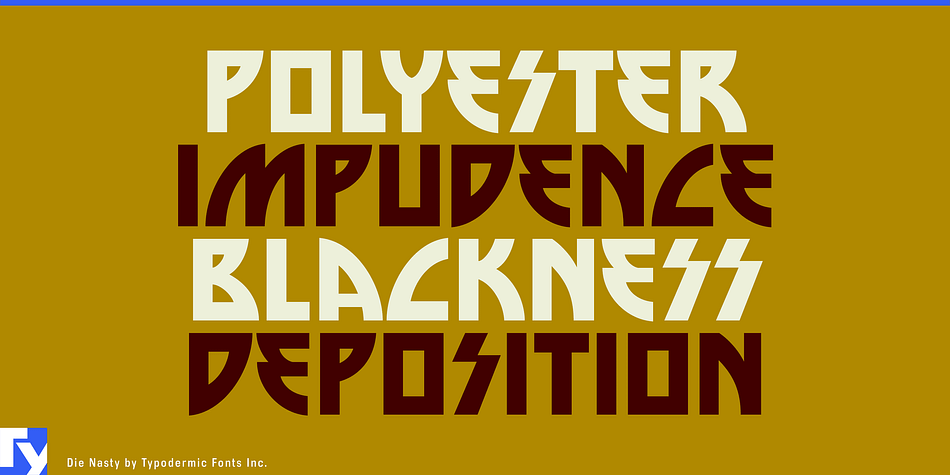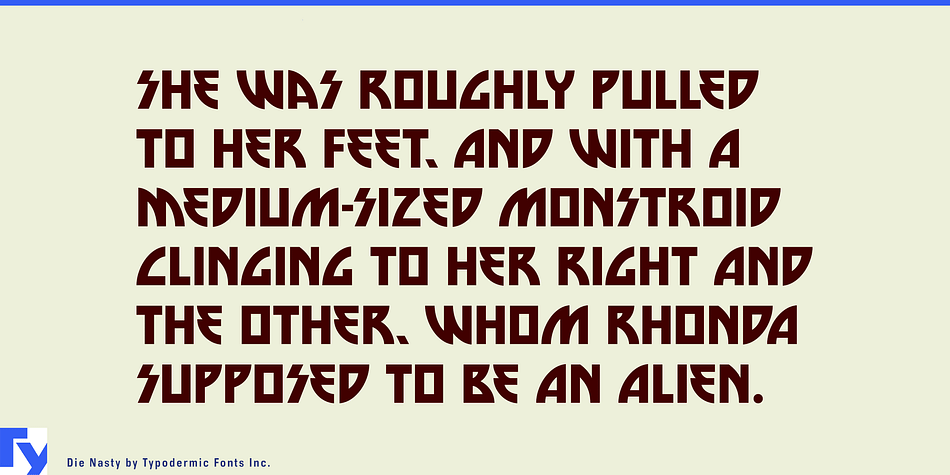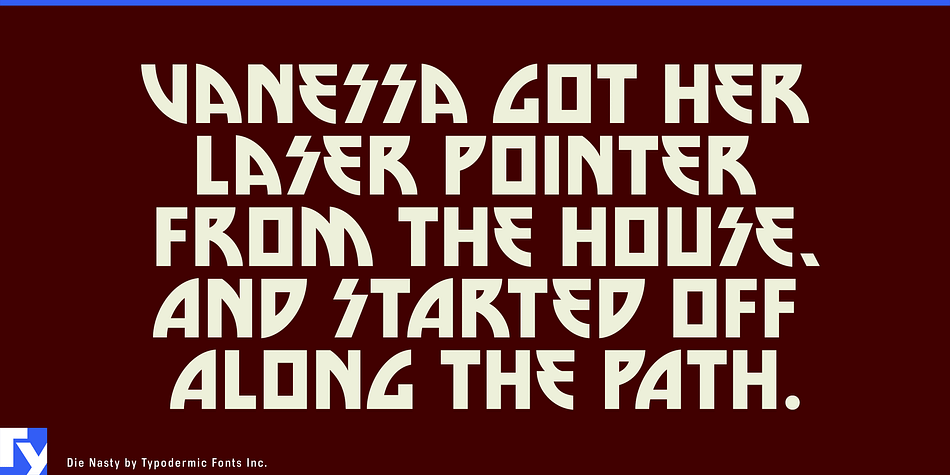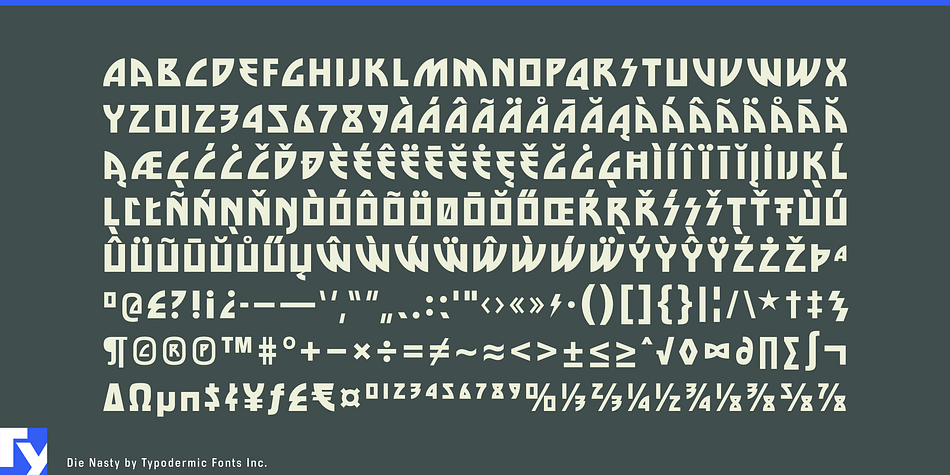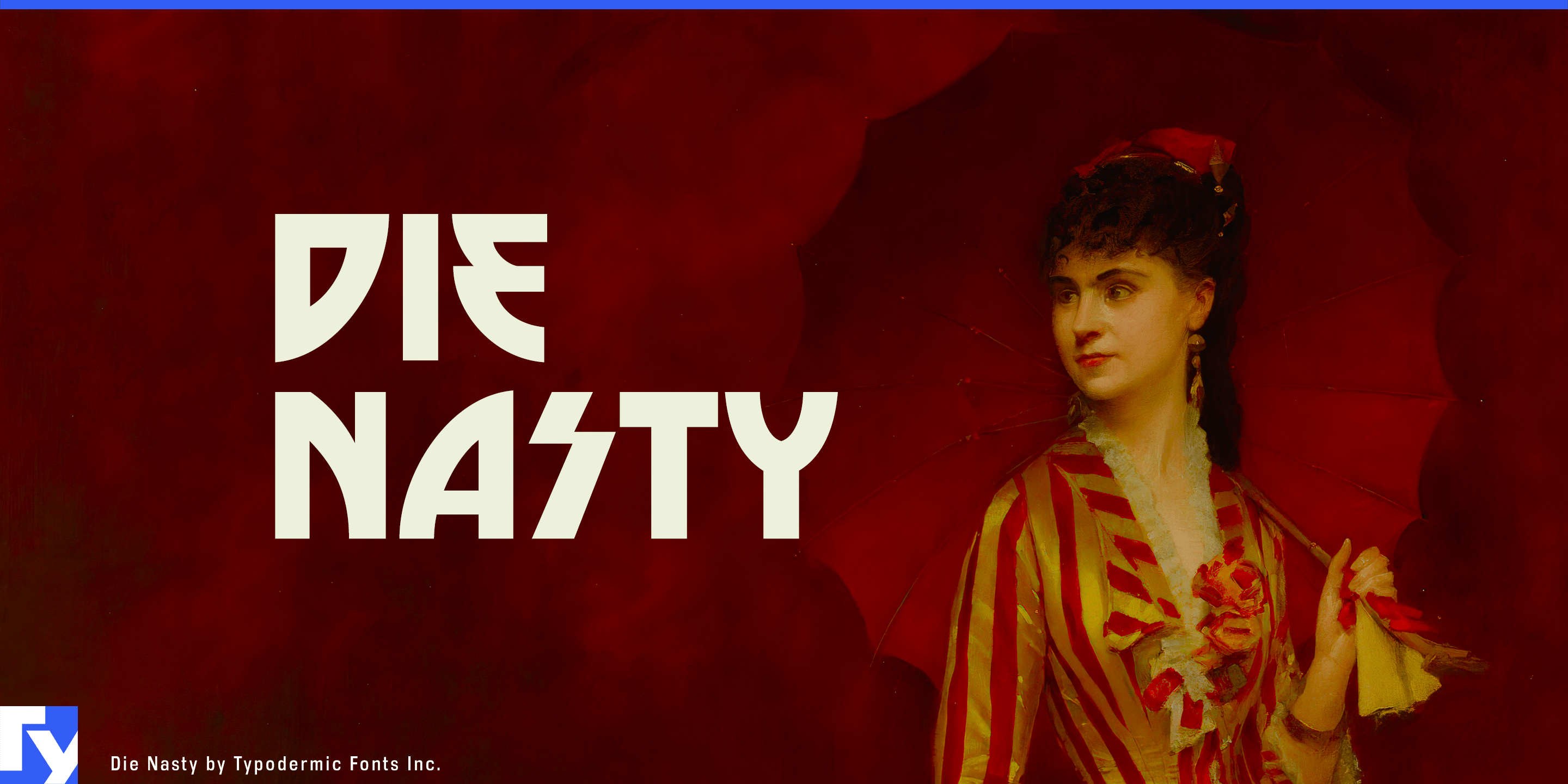
Die Nasty is a display sans font family published by Typodermic Fonts Inc.
Die Nasty is a glitzy Arts & Crafts headline typeface with a glam rock pedigree. A, M, V, and W all have variant forms that automatically appear in different contexts. Turn off the ligatures feature in your application to disable this feature. Kiss’s insignia influenced the design of this typeface. Because the lightning bolt “S” shape was misinterpreted as a Nazi emblem, the official band logo had to be modified in Germany. Please be mindful of the context in which you use this font, especially when a double-S combo is shown and exercise discretion. Most Latin-based European writing systems are supported, including the following languages. Afaan Oromo, Afar, Afrikaans, Albanian, Alsatian, Aromanian, Aymara, Bashkir (Latin), Basque, Belarusian (Latin), Bemba, Bikol, Bosnian, Breton, Cape Verdean, Creole, Catalan, Cebuano, Chamorro, Chavacano, Chichewa, Crimean Tatar (Latin), Croatian, Czech, Danish, Dawan, Dholuo, Dutch, English, Estonian, Faroese, Fijian, Filipino, Finnish, French, Frisian, Friulian, Gagauz (Latin), Galician, Ganda, Genoese, German, Greenlandic, Guadeloupean Creole, Haitian Creole, Hawaiian, Hiligaynon, Hungarian, Icelandic, Ilocano, Indonesian, Irish, Italian, Jamaican, Kaqchikel, Karakalpak (Latin), Kashubian, Kikongo, Kinyarwanda, Kirundi, Kurdish (Latin), Latvian, Lithuanian, Lombard, Low Saxon, Luxembourgish, Maasai, Makhuwa, Malay, Maltese, Māori, Moldovan, Montenegrin, Ndebele, Neapolitan, Norwegian, Novial, Occitan, Ossetian (Latin), Papiamento, Piedmontese, Polish, Portuguese, Quechua, Rarotongan, Romanian, Romansh, Sami, Sango, Saramaccan, Sardinian, Scottish Gaelic, Serbian (Latin), Shona, Sicilian, Silesian, Slovak, Slovenian, Somali, Sorbian, Sotho, Spanish, Swahili, Swazi, Swedish, Tagalog, Tahitian, Tetum, Tongan, Tshiluba, Tsonga, Tswana, Tumbuka, Turkish, Turkmen (Latin), Tuvaluan, Uzbek (Latin), Venetian, Vepsian, Võro, Walloon, Waray-Waray, Wayuu, Welsh, Wolof, Xhosa, Yapese, Zapotec Zulu and Zuni.